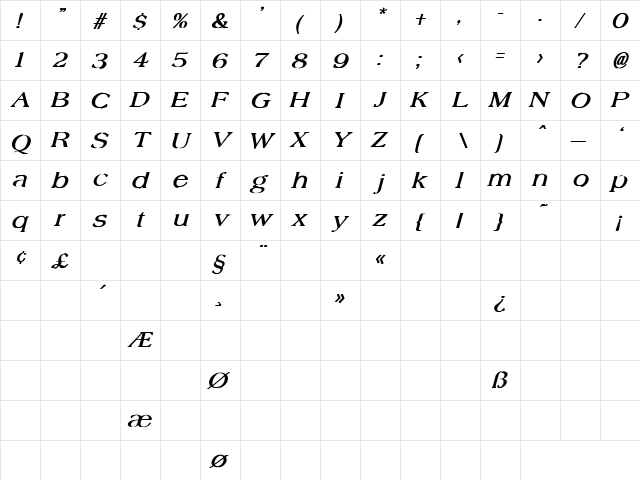
No More 2 Bold Italic
Design Context for No More 2 Typeface
No More 2 is a composed and adaptable typeface that performs quietly and consistently across a wide range of design contexts. The slanted form adds forward momentum and visual energy. Its bold stroke weight gives it real presence on the page.